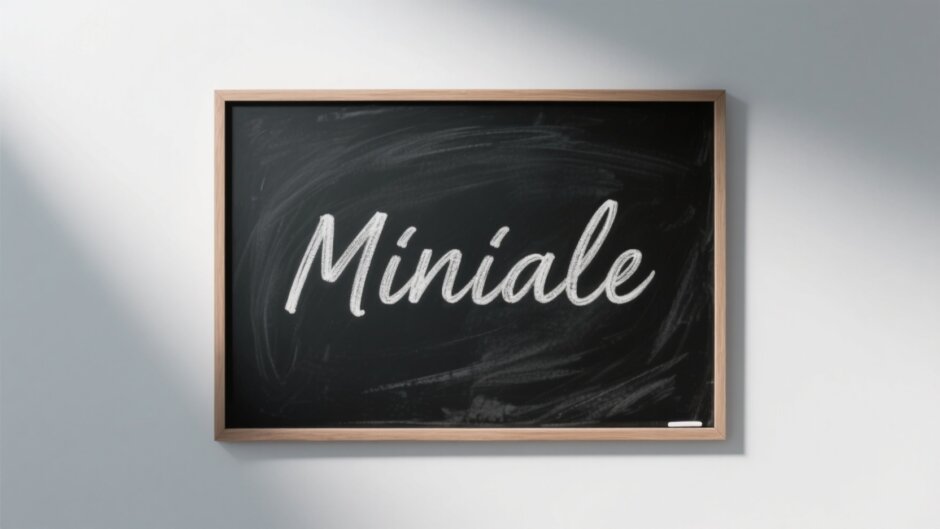
Ever wanted to make your text look like it was just written on a chalkboard? Chalk fonts are super popular because they give off that cool, old-school vibe that feels both personal and playful. Whether you’re designing a menu for a café, creating educational materials, or just spicing up your social media posts, a good chalk font generator can make all the difference. In this article, we’ll explore why chalk fonts are so special and introduce you to eight awesome tools that can help you create that perfect chalky look. From simple online generators to full-featured editing software, there’s something here for everyone.
What Makes Chalk Fonts So Unique?
Chalk fonts stand out because they mimic the imperfect, hand-drawn look of writing on a chalkboard. The lines are often uneven, with sketchy details that add a playful or vintage feel. This style brings a warm, human touch to digital designs, making it a favorite among teachers, students, restaurant owners, and creative professionals.
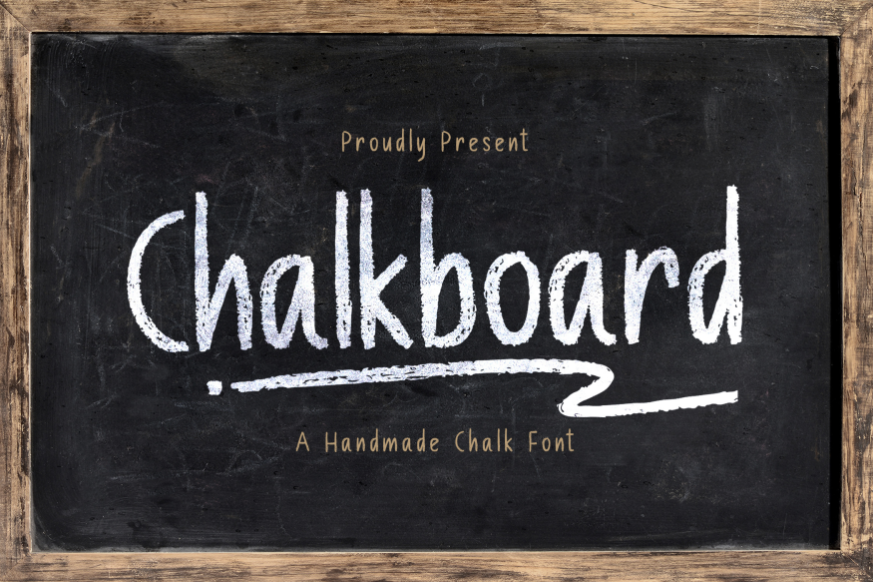
One of the best things about chalk fonts is their versatility. You can use them for school worksheets, café menus, social media graphics, party invitations, and more. They make everything feel friendlier and more handmade, which is why people love them so much.
Why Use a Chalk Font Generator?
If you’ve ever tried to create chalk-style text by hand, you know it can be time-consuming and tricky to get just right. That’s where a chalk font generator comes in handy. These tools save you tons of time by letting you type your text and instantly apply a chalk-like style. No more struggling to draw each letter perfectly!
Another great reason to use a chalk lettering generator is the variety of styles available. You can choose from dozens of unique fonts that add personality and flair to your projects. Whether you’re working on a poster, a video, or a social media graphic, a good chalk text generator makes the process smooth and fun.
Plus, using consistent fonts helps build your brand identity. If you’re creating content for a business or personal brand, sticking to a specific style makes your work more recognizable. And with a chalkboard font generator, you can experiment with different looks until you find the perfect match.
CapCut
CapCut is primarily known as a video editor, but it’s also an amazing tool for adding chalk-style text to your projects. It offers fonts like “Crayon Libre” and “Paint” that perfectly mimic the chalkboard look. What sets CapCut apart is its ability to edit text in layers, add animations, and apply effects like shadows and glows.
Apple Pie AI
Apple Pie AI is a font generator that uses artificial intelligence to create custom chalk-style fonts. Just describe what you’re looking for, and the AI does the rest. It’s perfect for anyone who wants unique typography without spending hours designing it from scratch.
The AI does a great job replicating chalk textures, with uneven strokes and grainy edges. You can customize the style, size, weight, and spacing, though it lacks advanced controls for details like chalk density.
FontStruct
FontStruct is a free online tool that lets you build fonts using geometric shapes on a grid. It’s like playing with digital Lego blocks for letters! This modular system is ideal for creating hand-drawn styles, including chalk fonts.
You can export your designs as TrueType fonts (TTF) for use in other programs. The platform also has a community where you can share fonts and explore others’ creations. The only downside is that intricate designs can be challenging due to the grid-based system.
FontSpace
FontSpace is a massive library of free user-submitted fonts, including a dedicated section for chalk fonts. You can preview fonts like “Chalkboard” and “School Bell” by typing your text before downloading.
Most fonts are free for personal use, and many are also free for commercial projects. Since the fonts are user-submitted, quality can vary, so always check the preview carefully.
Flaming Text
Flaming Text is a browser-based tool primarily for creating text logos, but it also offers chalk-style fonts. It’s incredibly easy to use—just type your text, choose a style, and customize it with shadows, colors, and textures. No account is needed!